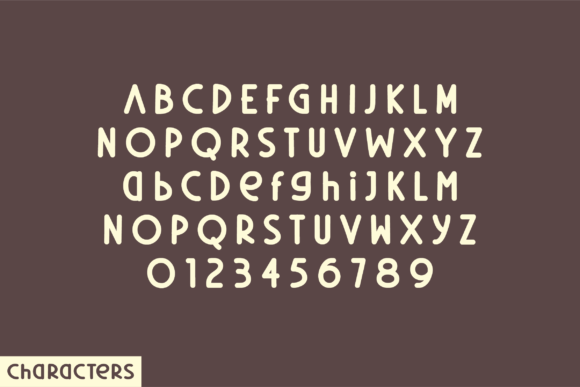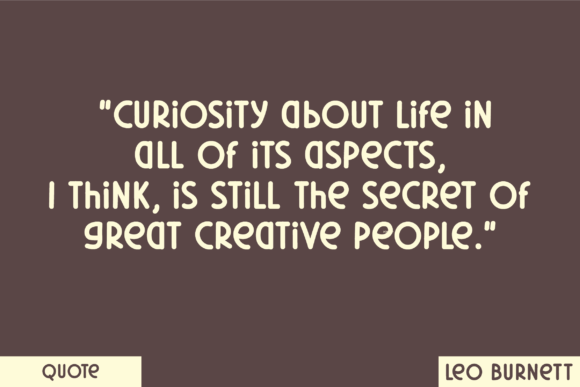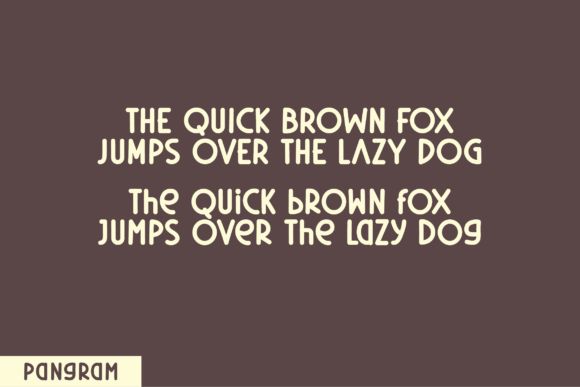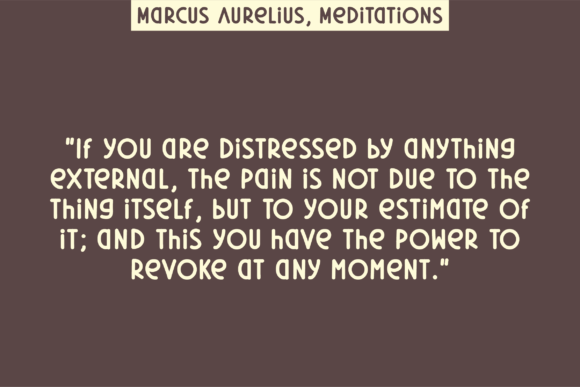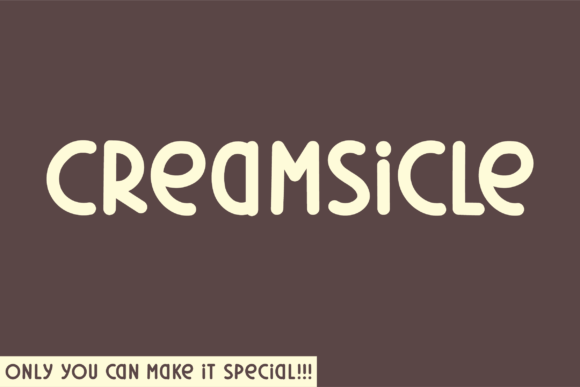
Introducing Creamsicle Font: The Unique Sans Serif for Creative Designs
Are you tired of using the same old fonts for your designs? Look no further! Creamsicle Font is a game-changer for designers and crafters alike. This natural sans serif font is created without changing a single node in each character’s indentation, making it a truly unique and interesting addition to your design toolkit.
The Story Behind Creamsicle Font
Creamsicle Font is a carefully crafted font that boasts a fresh and modern look. Its creator’s attention to detail and dedication to preserving the original node indentation of each character has resulted in a font that stands out from the crowd. This distinctive approach gives Creamsicle Font a natural, organic feel that’s perfect for a wide range of design applications.
What Makes Creamsicle Font So Special?
So, what sets Creamsicle Font apart from other sans serif fonts? The answer lies in its unique node indentation preservation. By leaving the nodes intact, the font’s creator has maintained a level of authenticity and character that is often lost in digital fonts. This attention to detail makes Creamsicle Font perfect for:
- Quotes: Add a touch of elegance and sophistication to your inspirational quotes with Creamsicle Font.
- Notes: Use Creamsicle Font to add a personal touch to your notes, journals, and planners.
- Tees: Create eye-catching and stylish designs for t-shirts, hoodies, and other apparel with Creamsicle Font.
- Product design: From packaging to branding, Creamsicle Font is the perfect choice for any product design project.
The Benefits of Using Creamsicle Font
Creamsicle Font offers a range of benefits for designers and crafters, including:
- Uniqueness: Creamsicle Font is a one-of-a-kind font that will set your designs apart from the rest.
- Versatility: With its clean and modern look, Creamsicle Font can be used for a wide range of design applications.
- Ease of use: Creamsicle Font is easy to read and works well in both digital and print formats.
- Customization: With Creamsicle Font, you can add your own personal touch to your designs and make them truly unique.
Tips for Using Creamsicle Font
To get the most out of Creamsicle Font, here are a few tips to keep in mind:
- Experiment with different sizes: Creamsicle Font works well in a variety of sizes, from small text to large headlines.
- Play with color: Creamsicle Font looks great in a range of colors, from bold and bright to soft and pastel.
- Mix and match: Combine Creamsicle Font with other fonts to create unique and interesting typography.
Creamsicle Font is a game-changer for designers and crafters looking to add a unique and creative touch to their designs. With its natural sans serif look and preserved node indentation, Creamsicle Font is perfect for a wide range of design applications. Whether you’re creating quotes, notes, tees, or product designs, Creamsicle Font is the perfect choice. So why settle for ordinary fonts when you can have a truly unique and special font like Creamsicle?